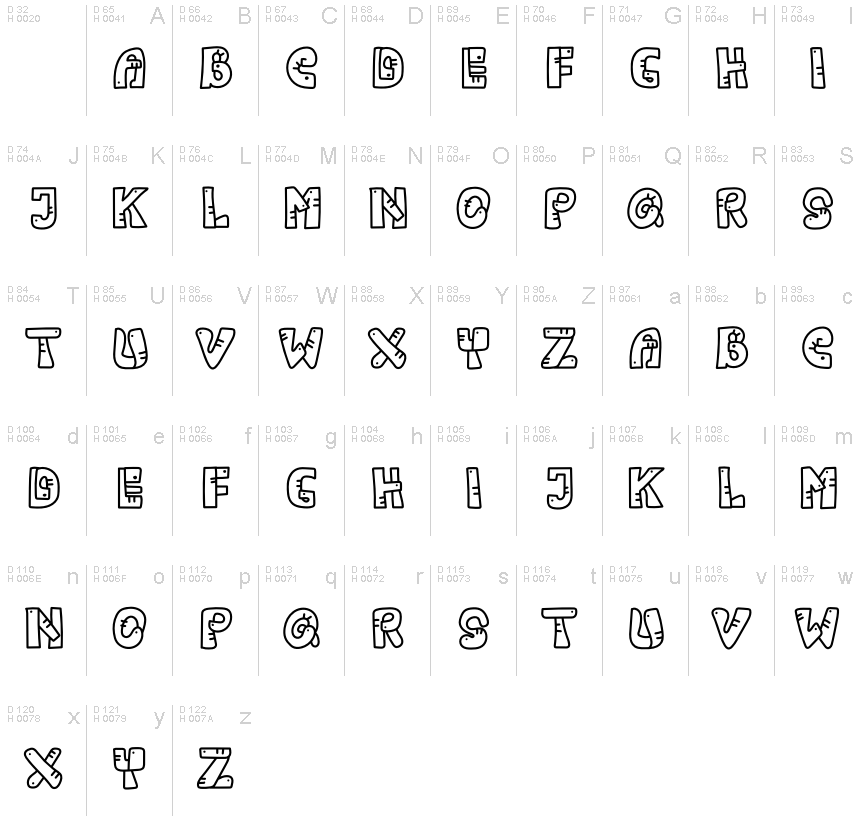
Worm Rules
Worm Rules font designed by Reffan Suseno is a display typeface with cartoon outlined style. This fun layered font has playful, whimsical bold lines that give a fun strong look to the design. Worm Rules font draws inspiration from cartoonish design with high contrast and decorative details, organic shapes in light textures fit into informal mood and illustrative elements that are perfect for T-shirt designs and other creative projects.
This font is perfectly used for kids’ goodies such as T-shirts, storybooks, crafts or just any children related activity will be great as long as it does not require standard legibility.